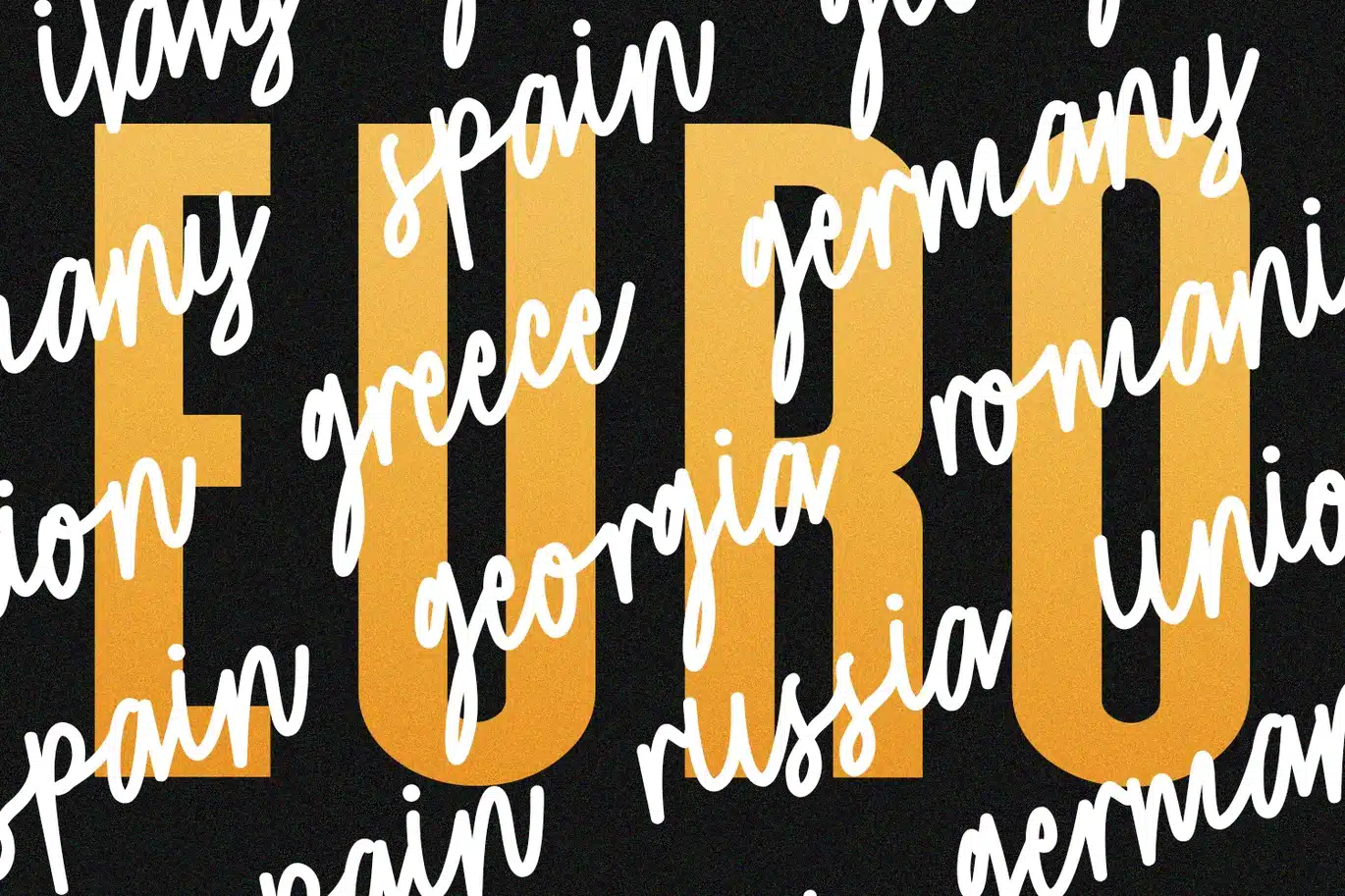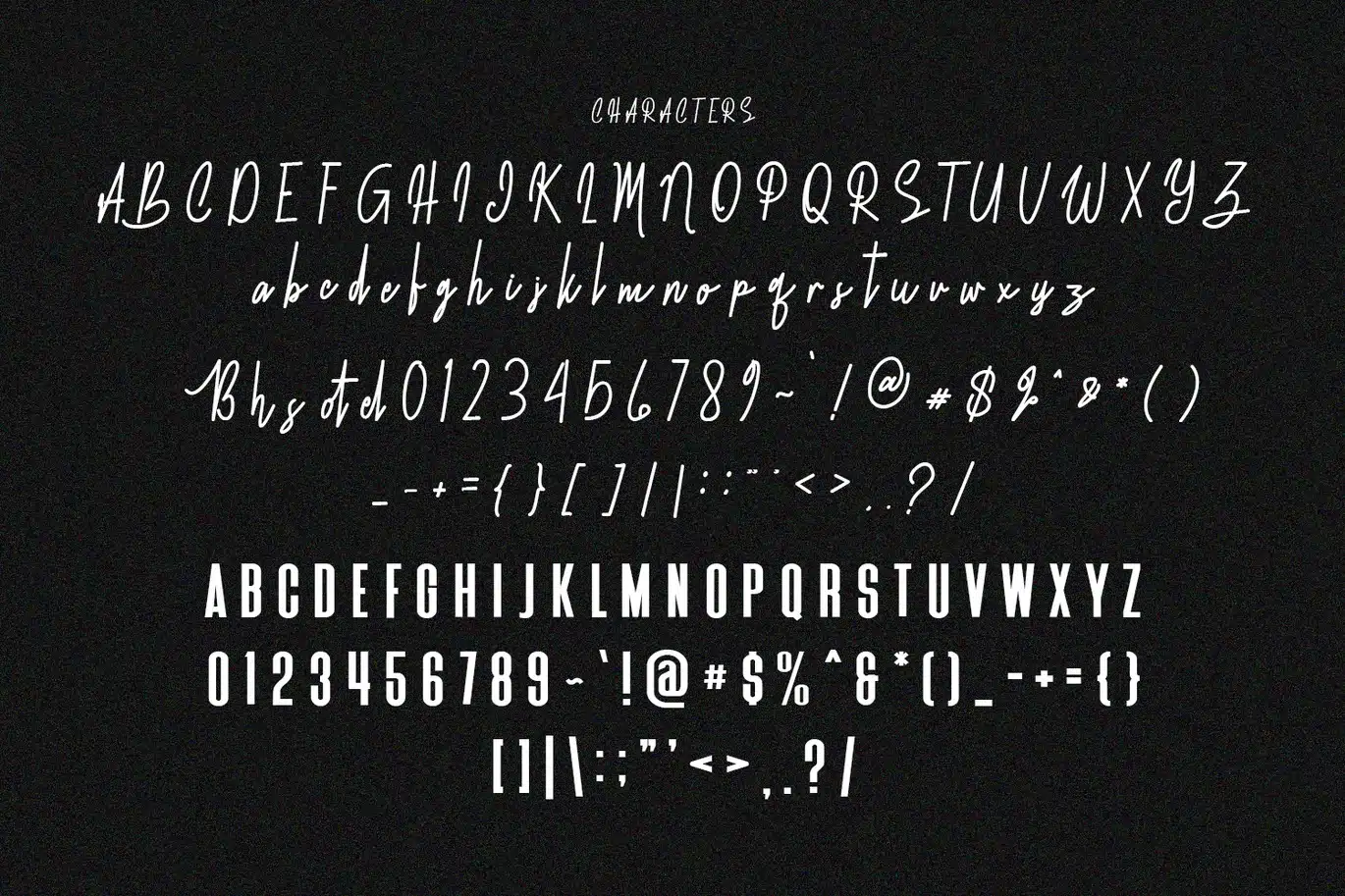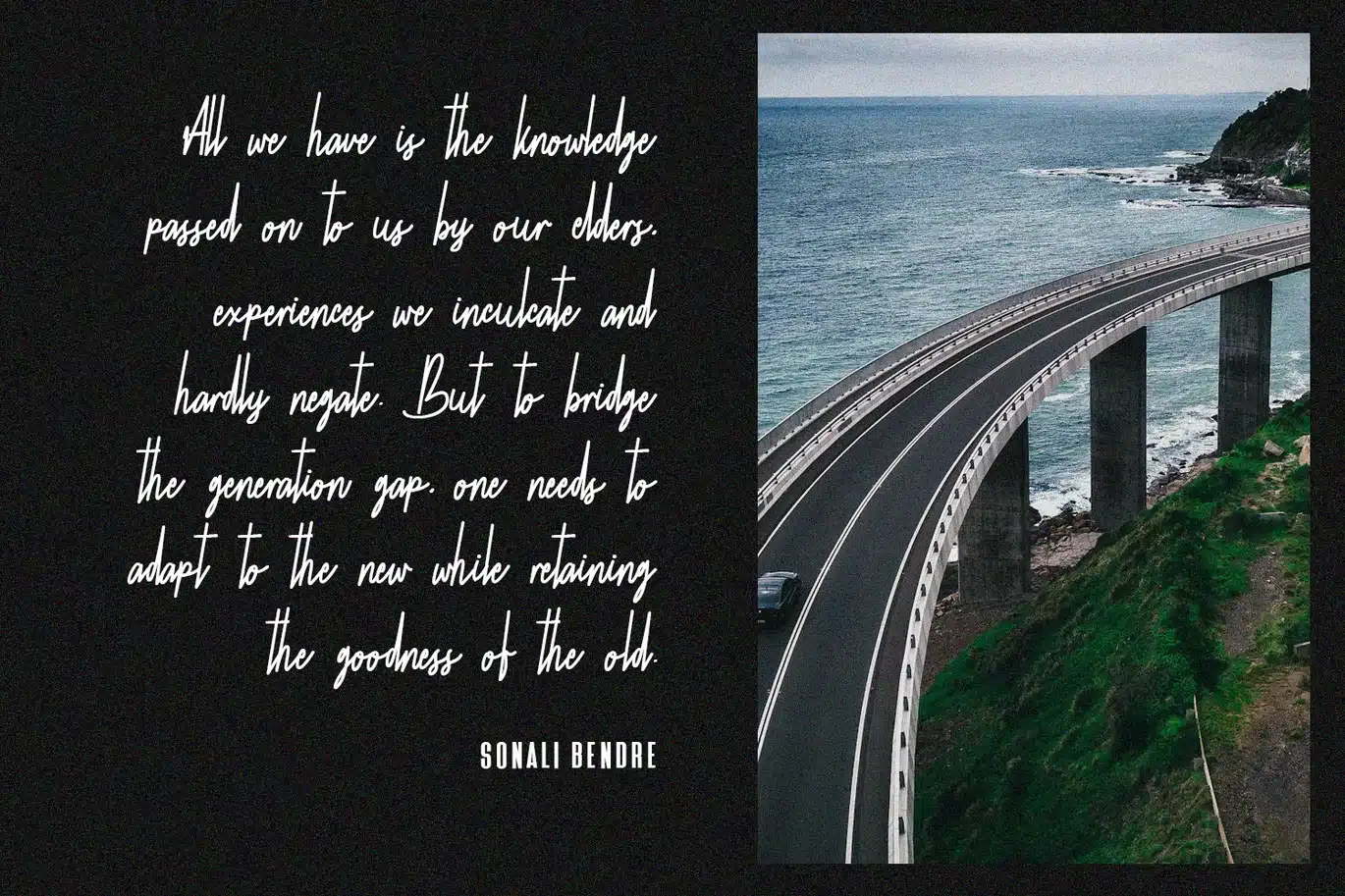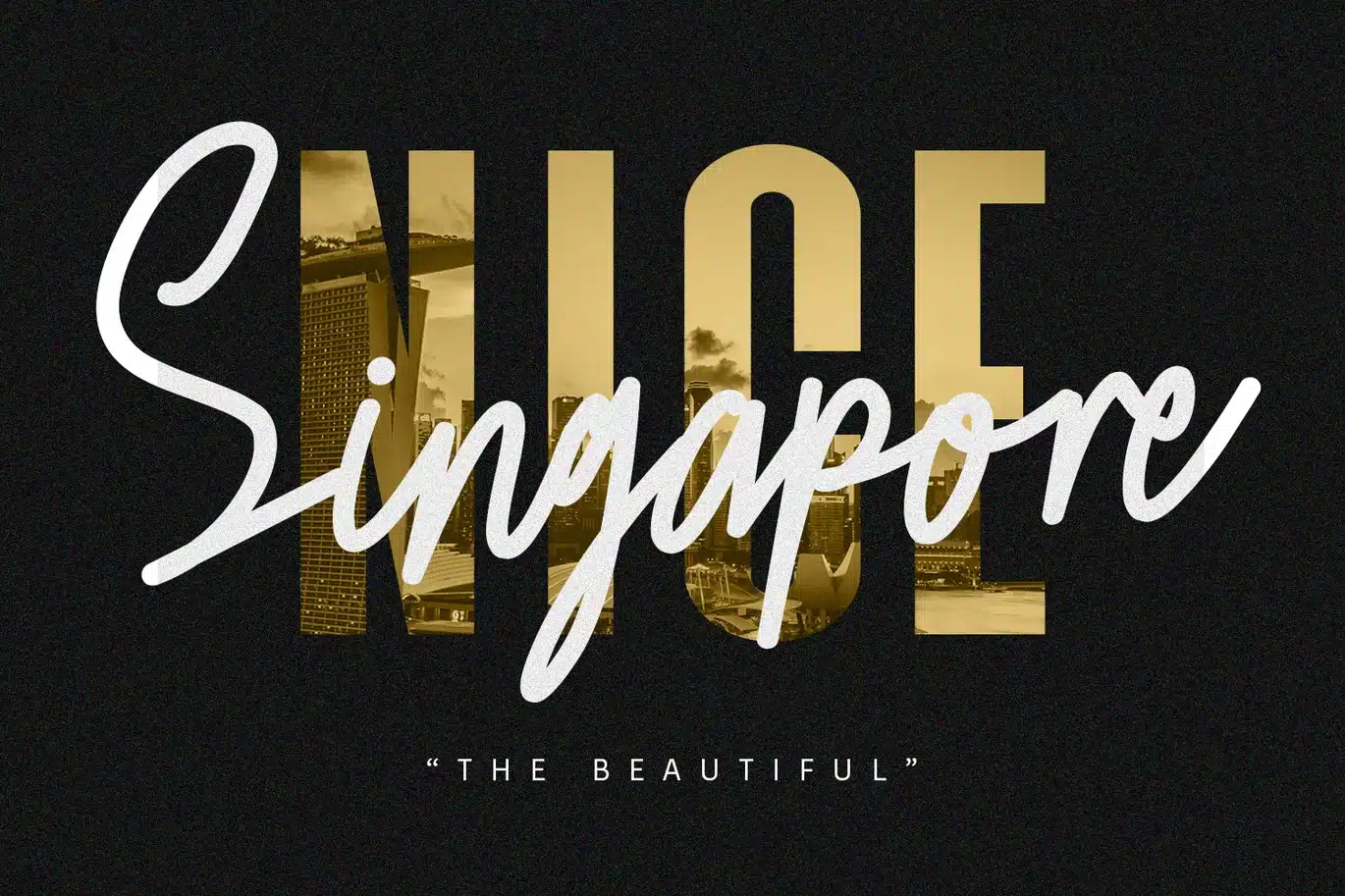
Bothels Font Duo
Give your designs an authentic signature handcrafted feel. “ Bothels” is perfectly suited to signature, stationery, logo, typography quotes, website header, branding and more.